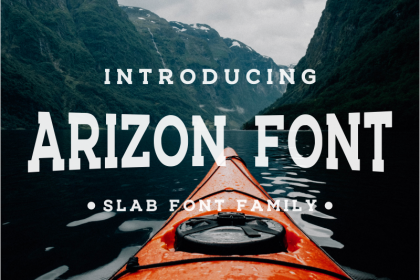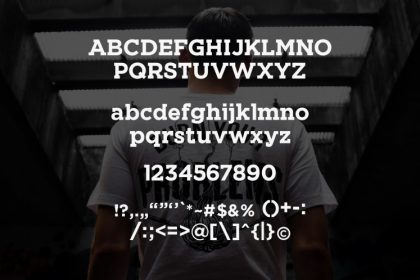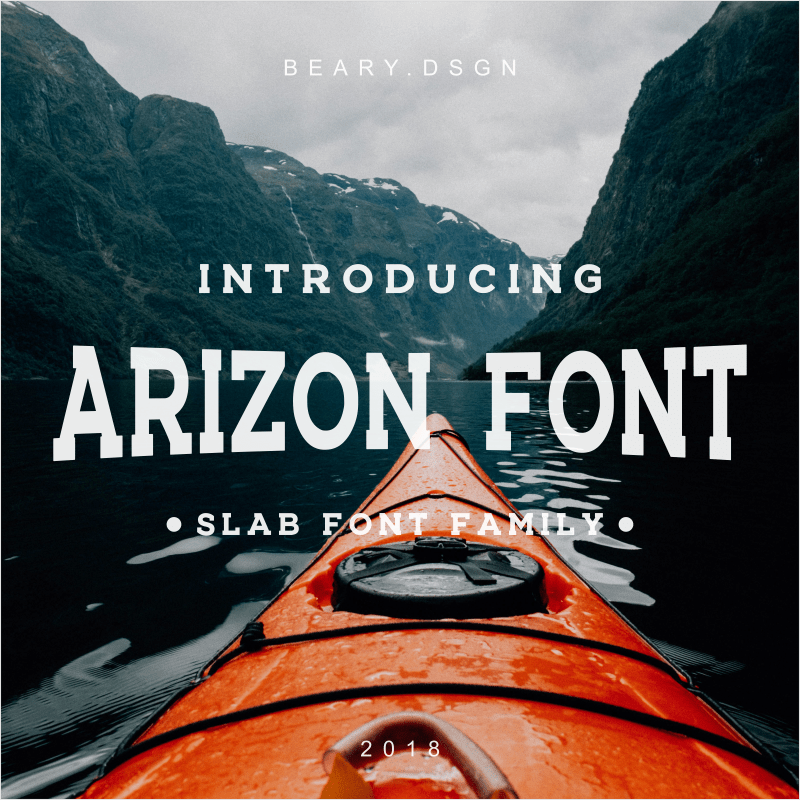
Arizon Slab Font Family
Arizon Slab Font Family is striking and bold font. It has a great readability and is perfect for logos, headlines, coffee shops, posters, adventure designs, and much more!